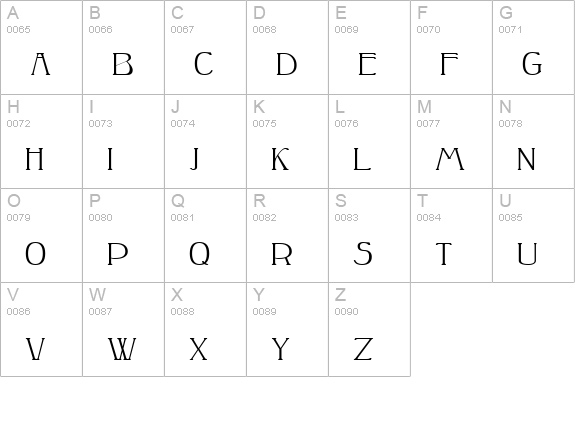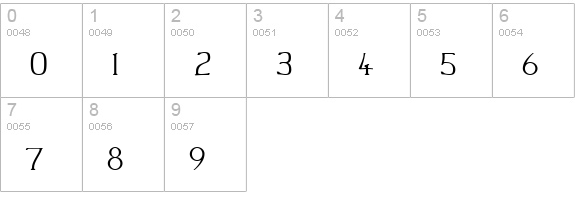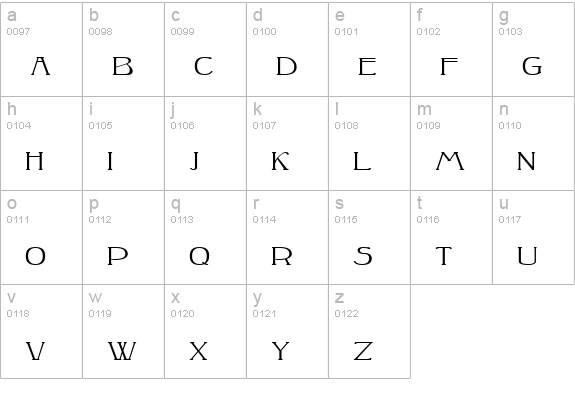
Peake-Squat Font Details
Introducing the remarkable Peake-Squat font, a captivating typeface that effortlessly combines elegance with a touch of playfulness. With its unique design and exquisite attention to detail, Peake-Squat is the perfect choice for those seeking a font that stands out in any creative project. Crafted with utmost care, this font boasts a harmonious blend of bold and rounded shapes, creating a distinct visual appeal that commands attention. Its carefully structured lines and perfectly balanced proportions make it a versatile choice for a wide range of applications, from eye-catching headlines to attention-grabbing logos. Peake-Squat's versatility extends beyond its aesthetics, as it offers a wide range of weights and styles to suit any design need. Whether you're looking for a bold statement or a subtle touch of sophistication, this font has got you covered. Its extensive character set includes a variety of ligatures, alternates, and swashes, providing endless possibilities for customization. One of the most enticing aspects of Peake-Squat is that it is freely available to download at FontsMarket.com. This means that you can easily add this stunning font to your collection without any financial limitations. Embrace the freedom to bring your creative visions to life with this exceptional font, as it seamlessly integrates into various design software, ensuring a hassle-free experience. Whether you're a professional graphic designer, a passionate artist, or simply someone who appreciates the beauty of typography, Peake-Squat is a font that will undoubtedly leave a lasting impression. Its unique combination of elegance and playfulness will elevate your designs and captivate your audience, making it a true gem in your font library. Download Peake-Squat for free at FontsMarket.com today and unlock the endless possibilities this extraordinary font has to offer. Experience the freedom to create stunning visuals that truly speak to your artistic vision.